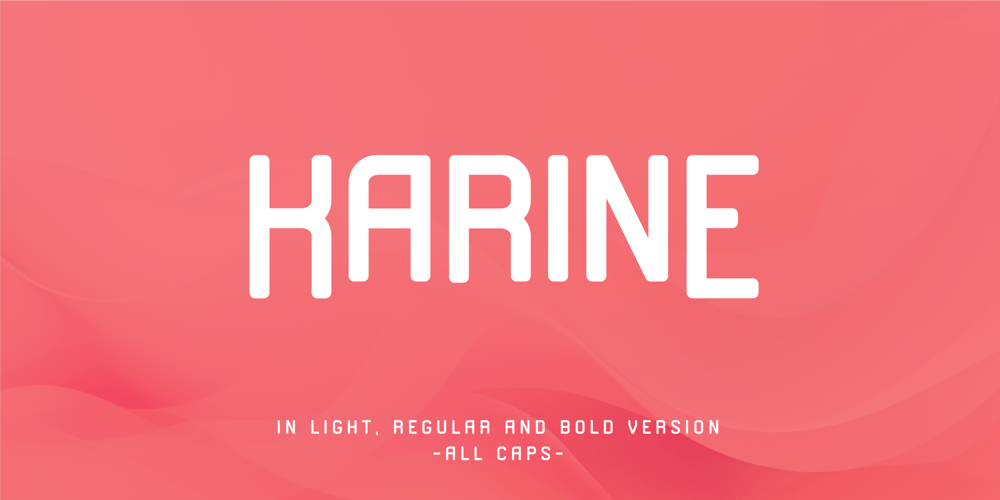
Karine
Karine font
Karine Font Family was designed by Agustian Eko Saputro, Aprilia Nurina Putri and published by Mightyfire. Karine contains 3 styles and family package options. If you’re looking for a simple, clean and modern font, here is Karine.We have three styles that can be used in any writings.The looks of the font is feminine yet tough since it has neat and clean style.Enjoy in using Karine! 🙂